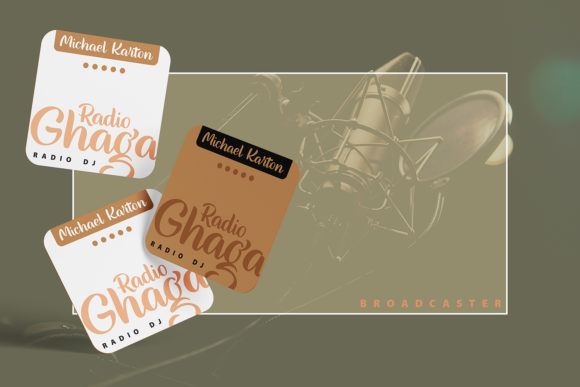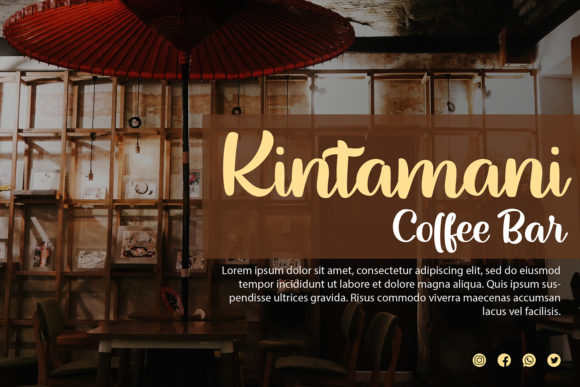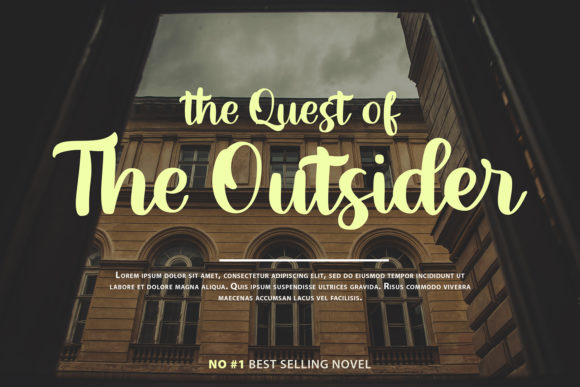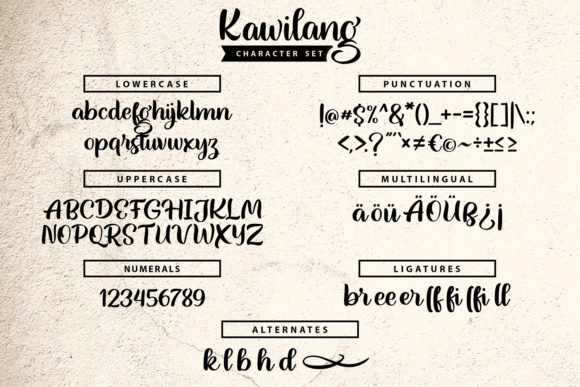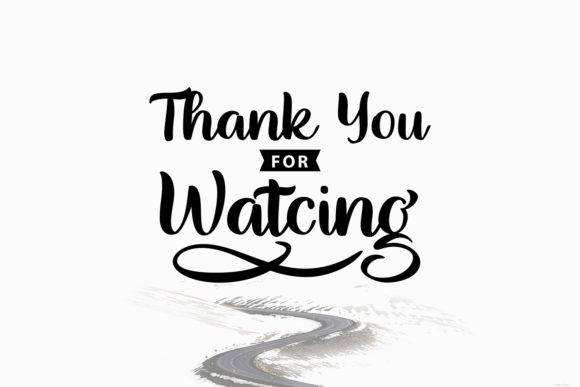
HomeScript FontsKawilang Font Script Fonts Kawilang Font FacebookXPinterestWhatsApp 1 of 6 Kawilang Font Poster 2... Kawilang Font Poster 3... Kawilang Font Poster 4... Kawilang Font Poster 5... Kawilang Font Poster 6... About Kawilang Font Kawilang is a bold and fun handwritten font. This is the perfect font for making original and outstanding designs. DOWNLOAD NOW People also explored Tropico Font Fideon Font Monday Fresh Font Merry Christmas Font Hondo Davidas Font Sanpedro Font Holijoy Font Humbler Sans Font 274 0 TagsKawilang Font Previous articleChildren Love Note FontNext articleCharmely Font LEAVE A REPLY Cancel reply Comment: Please enter your comment! Name:* Please enter your name here Email:* You have entered an incorrect email address! Please enter your email address here Website: Save my name, email, and website in this browser for the next time I comment. Personal Use Free Calling Personal Use Free Read more about this font Adlanta Personal Use Free Read more about this font Written by Hand Personal Use Free Read more about this font Krait Personal Use Free Read more about this font BLOG 5 Fonts That Will Dominate Design Trends in 2026 5 Fonts for 2026 That Will Dominate Design Trends Typography plays a critical role in visual communication, and as we look ahead to 2026, it’s... The 10 Best Handwriting Fonts to Add Personality to Your Designs Using Fonts in Digital Marketing: Tips to Strengthen Your Brand Identity Exploring Font Trends